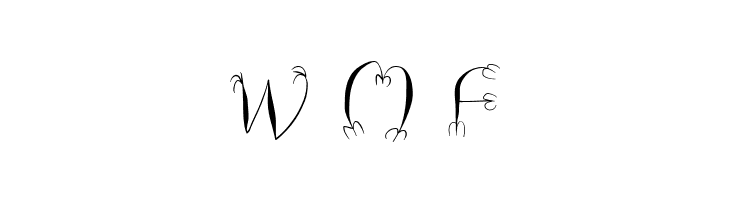
QuickJuliusC Font
A whimsical, hand-drawn font with artistic, elongated characters.
DiskOBats Font
A decorative font with abstract, whimsical face designs in circular shapes.
StaffClefPitches Font
Font by www.hindson.com.au
This is not a valid text font; it is a collection of musical notation symbols.
MKDingBats Font
A playful dingbat font with quirky, hand-drawn illustrations.
PrettyPeople Font
A decorative Halloween-themed font with playful, cartoonish illustrations.
Thundergod Outline Font
Font by Daniel Zadorozny - www.iconian.com
A bold, futuristic outline font with geometric shapes and sharp angles.
AnironC Bold Font
Pete Klassen - www.thehutt.de/tolkien/fonts.html
A bold, medieval-inspired font with sharp angles and smooth curves.
RunningGnomes Font
Playful dingbat font with running cartoon characters and objects.
Metal Rebel Font
A bold, angular font with a futuristic and industrial design.
LMS Beach Scrawl Font
London's Letters - www.londonsletters.com/
A playful, beach-themed decorative font with intricate interior designs.
TangoHollywut Font
A surreal, illustrative dingbat font with diverse, whimsical icons.
Qbic Italic Font
Glitch - www.koenhachmang.com/webwork/glitch/
A bold, geometric, and italic font with a modern, edgy style.
Quebec SemiBold Italic Font
A modern, semi-bold italic font with clean lines and a dynamic style.
Yanone Kaffeesatz Extra Light Font
Font by Yanone
A sleek, extra-light sans-serif font with a modern and condensed design.
OurPoliticians Font
Cartoonish, political caricature font with unique illustrated glyphs.
Oregon LDO Bold Oblique Font
A bold, oblique font with strong, slanted letterforms for a dynamic and modern look.
Spijner-Powerplay Font
Font by www.sonntag.nl
A decorative, ornamental font with abstract, artistic characters.
Grendel's Mother Shadow Font
A bold, shadowed font with a modern, three-dimensional appearance.
Cyberchild CE Font
ATRAX - antraxja-fonts.iweb.pl/en/
A futuristic, angular font with sharp edges and geometric shapes.
LookForLeonardo Font